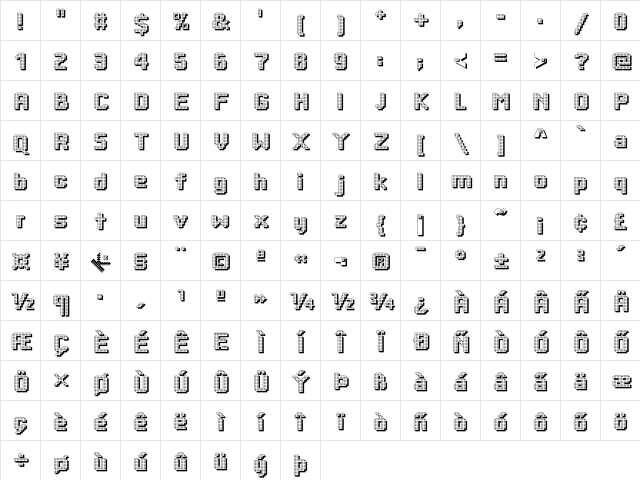
DottyShadow Regular
Design Context for DottyShadow Typeface
DottyShadow is rooted in pixel-grid construction, making it a natural fit for game UI, retro computing aesthetics, and digital nostalgia projects.
A natural choice for retro game titles, chiptune music branding, 8-bit UI, and digital nostalgia projects.
Pro Tip: Pair DottyShadow with flat colour palettes and simple geometric UI elements to reinforce its digital aesthetic.